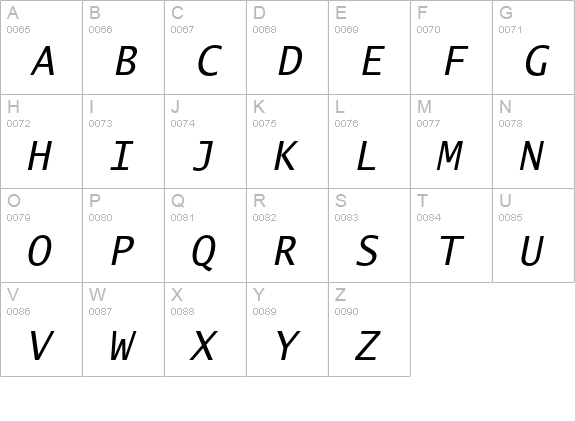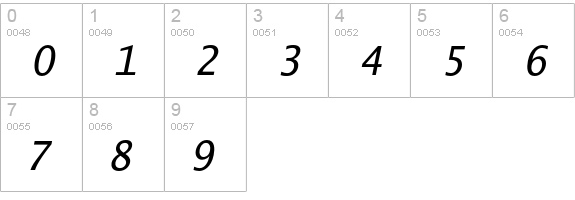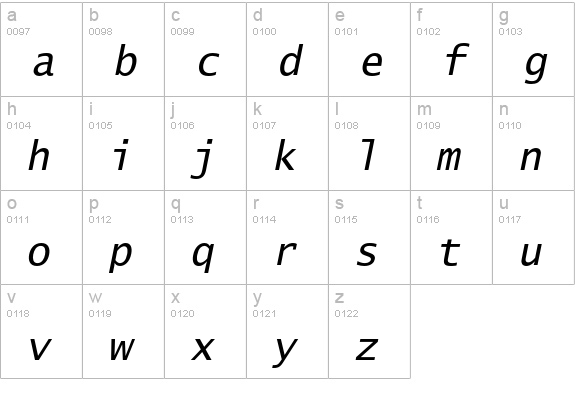
Lucida Sans Typewriter Std Oblique Font Details
Lucida Sans Typewriter Std Oblique is a distinctive, italic variant in the Lucida typeface family \xE2\x80\x94 well suited to design and typography projects.
The Lucida Sans Typewriter Std Oblique font is a sleek and modern typeface that is perfect for adding a touch of sophistication to your designs. Its oblique style lends a contemporary feel, making it ideal for projects that require a professional and stylish look. The clean lines and uniform spacing of this font make it easy to read and versatile for a wide range of applications. Best of all, the Lucida Sans Typewriter Std Oblique font is available for free download at FontsMarket.com. Whether you're working on a personal project or a professional design, this font offers a high-quality and stylish option without any cost. Don't miss out on the opportunity to enhance your creations with this elegant and free typeface.